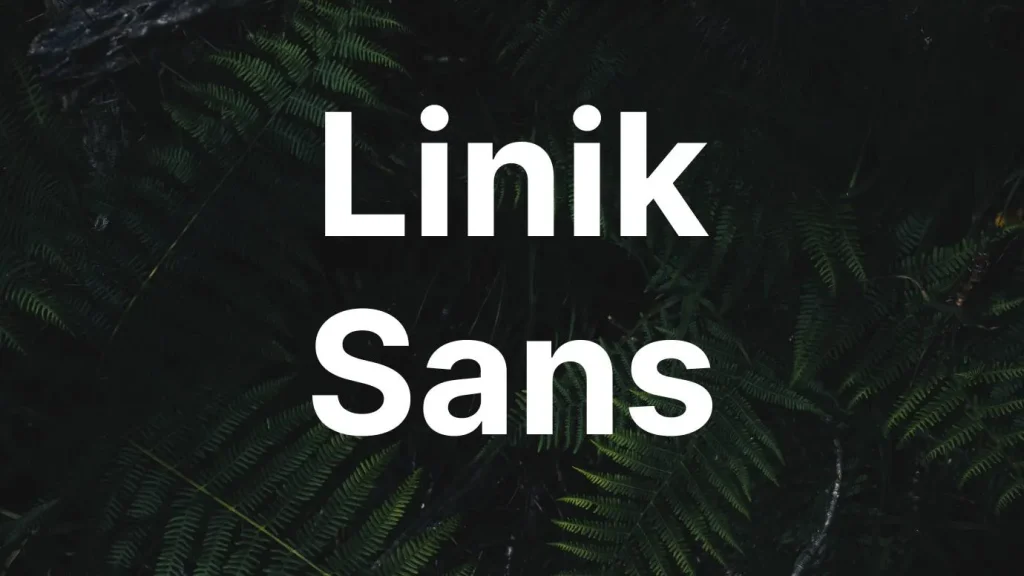
Linik Sans Font is a Sans serif font that has trendy glyphs and characters, that make it a fantastic option for any project that requires a touch of elegance. Rasmus Anderson designed this nice and attractive design.
Additionally, the typeface features have a large variety of ligatures, lowercase and uppercase characters, and capital letters. This font attracts the attention of the viewer.
This typeface can be used to create stunning and attractive designs. Adding this font to your project will improve the look of your tasks and makes it prominent in front of the client.
The typeface is very popular among creators and is used for web development. This style can be an excellent choice for logo design.
DesignerRasmus Andersson
Using the font to make interesting book covers, store names, logos, and websites. The typeface is appropriate for all kinds of projects, including branding initiatives, home furnishings designs, and product branding.
It can be used to create lengthy and brief paragraphs. Also suitable for banner design and artwork. It contains lower capital letters. Pairing this typeface with roselina script font that may really help to create a unique and outstanding look.
The typeface is used in a variety of projects, such as emails and messages, websites, logos, and more. This typeface is frequently used in numerous projects by designers because of its appealing look.
Rasmus Andersson designed this nice and attractive design.